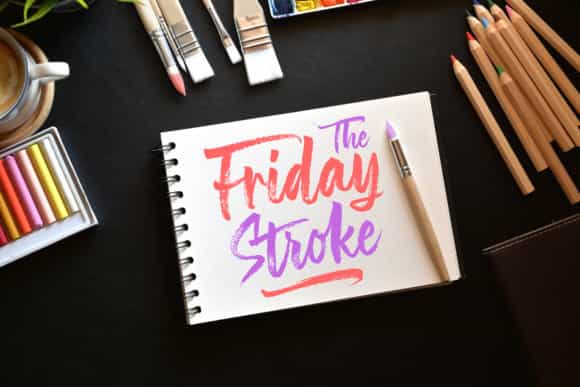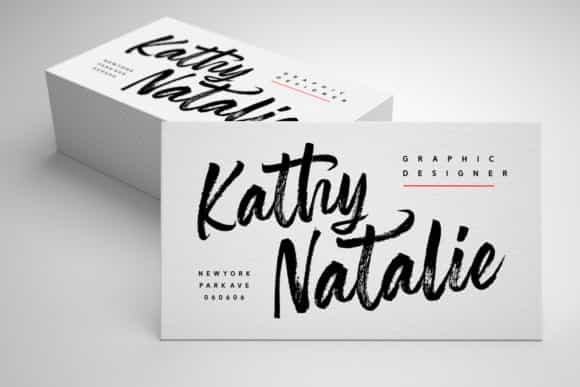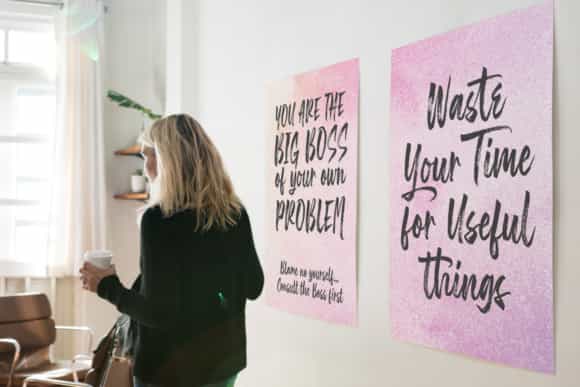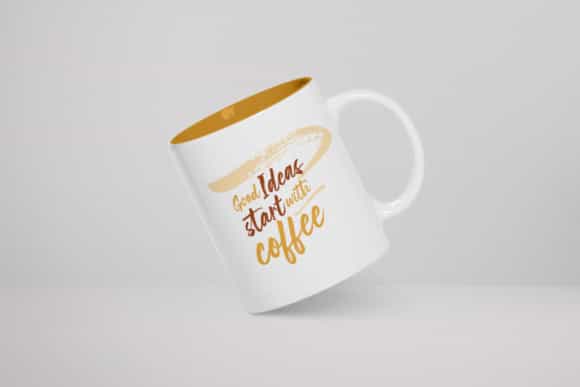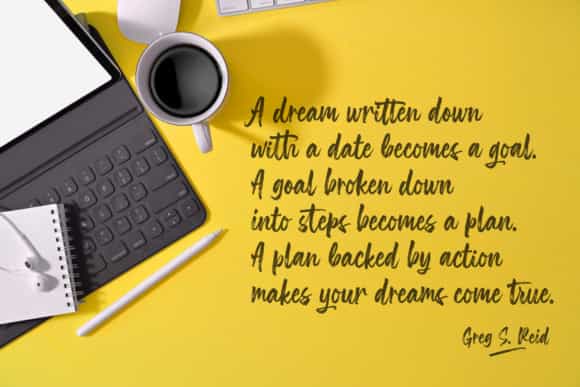
Introducing The Friday Stroke Font! It’s a cool and fun handwritten font with an authentic charm. It will turn any design project into a stand out! This font is perfect for branding projects, logo, wedding designs, social media posts, advertisements, product packaging, product designs, label, photography, watermark, invitation, stationery and any projects that need handdrawn taste.